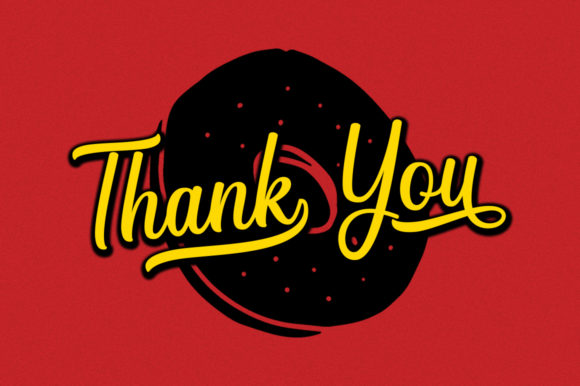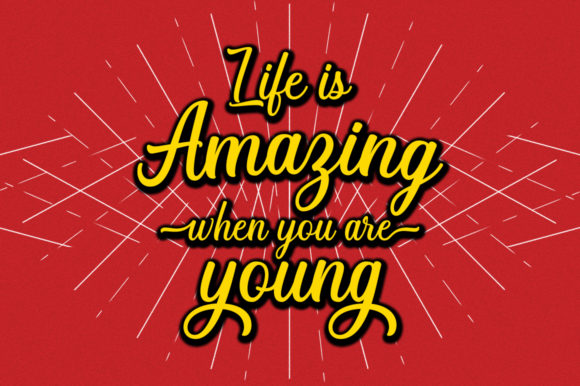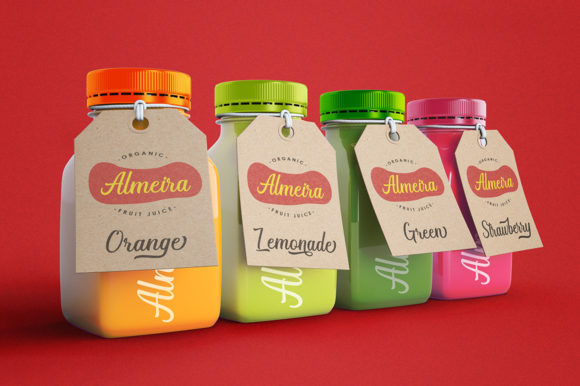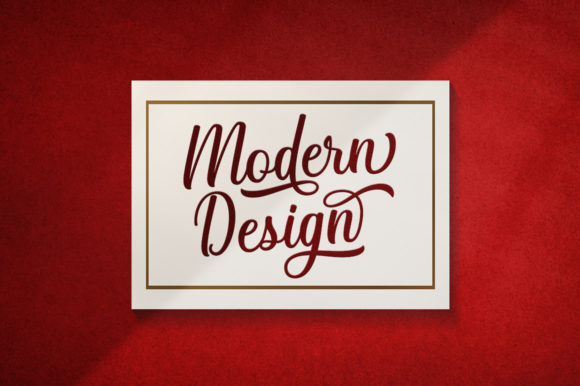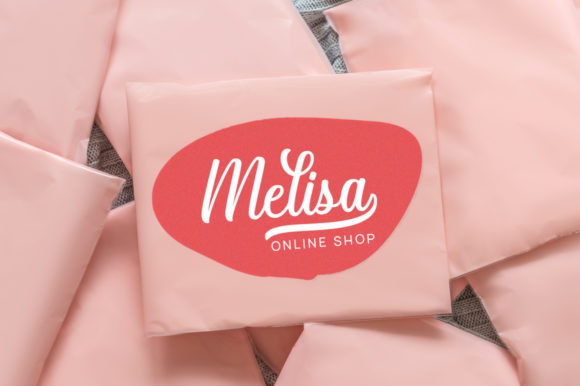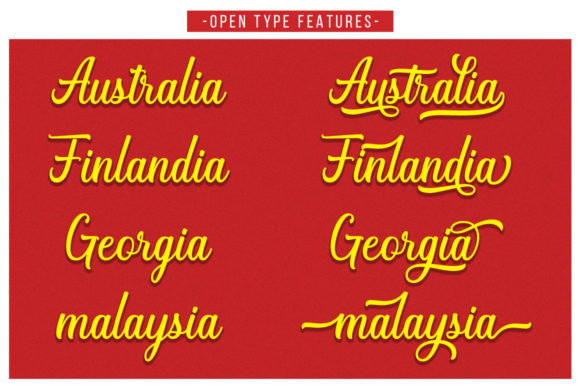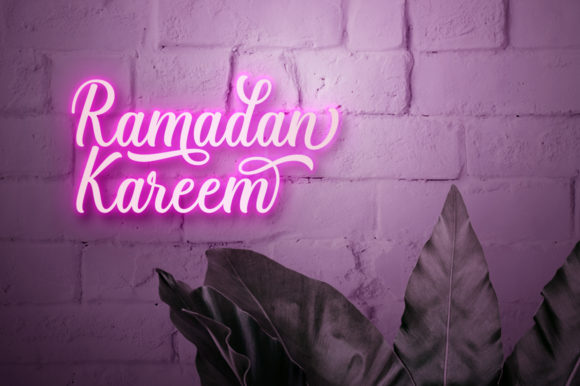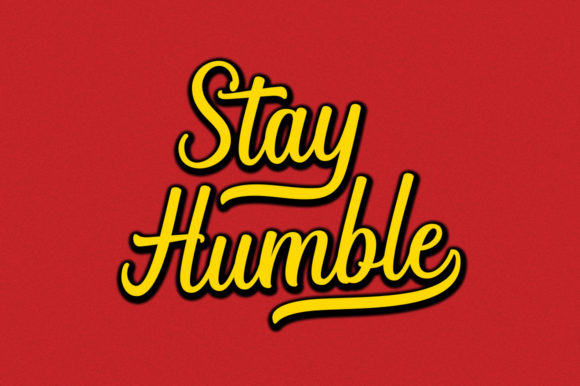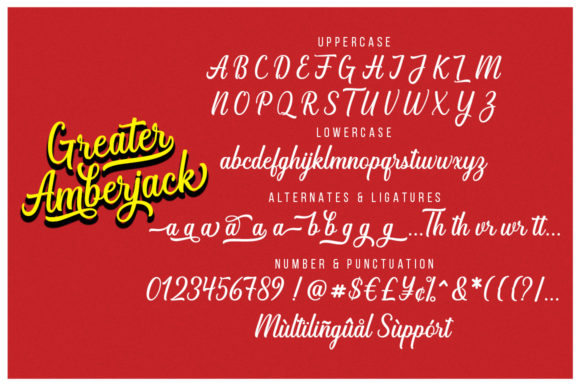
Greater Amberjack Font
About Greater Amberjack Font
Greater Amberjack is a modern handwritten font. It has an elegant look and an incredible friendly feel. It will elevate a wide range of design projects to the highest level, be it branding, headings, wedding designs, invitations, signatures, logos, labels, and much more!